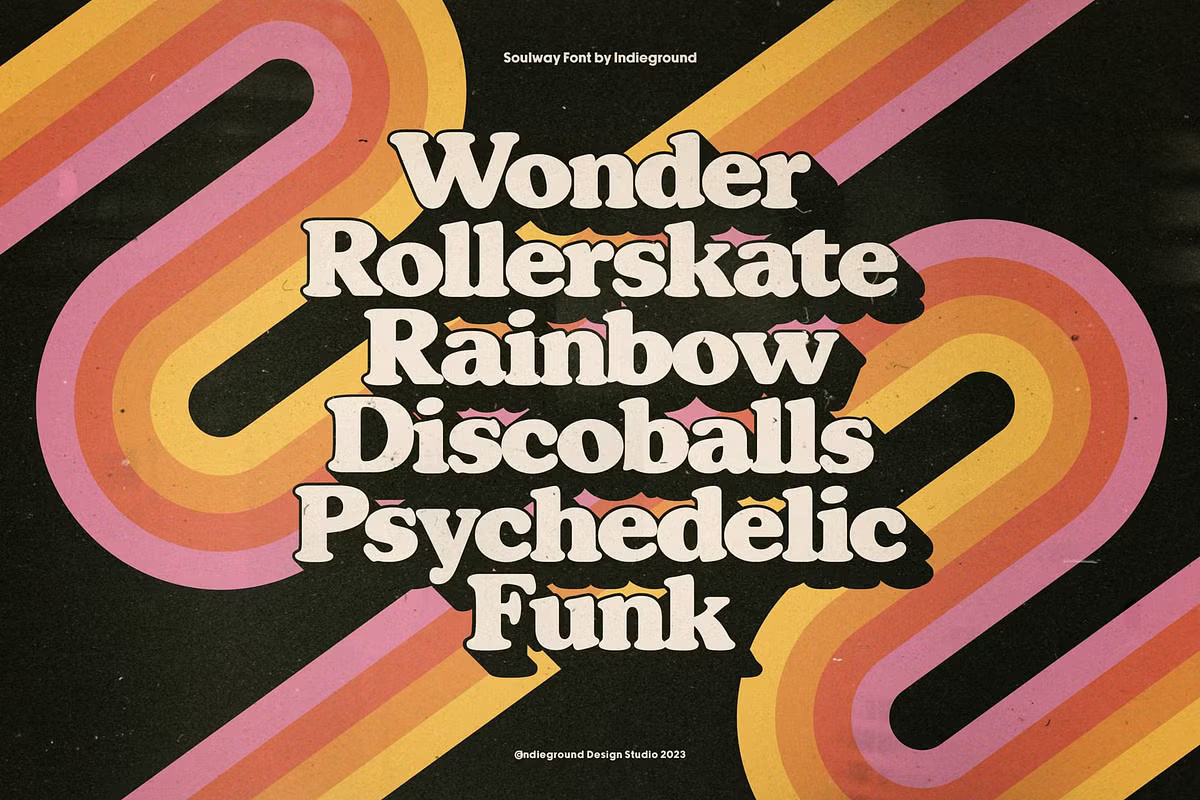
Soulway Font by Indieground is a bold, curvy serif typeface that beautifully captures the essence of 1970s design. Perfect for adding a nostalgic touch to digital artwork, this display font is available in both regular and shadow styles. Inspired by one of the most recognizable typefaces of recent decades, Soulway is ideal for creating album covers, posters, flyers, and other retro-inspired designs.
Beyond traditional design applications, Soulway also serves as a fantastic tool for crafting vintage-style social media content, offering a perfect canvas for storytelling with a classic aesthetic. Its smooth curves and elegant structure evoke a timeless charm, allowing creativity to flow effortlessly.
Soulway Serif Font